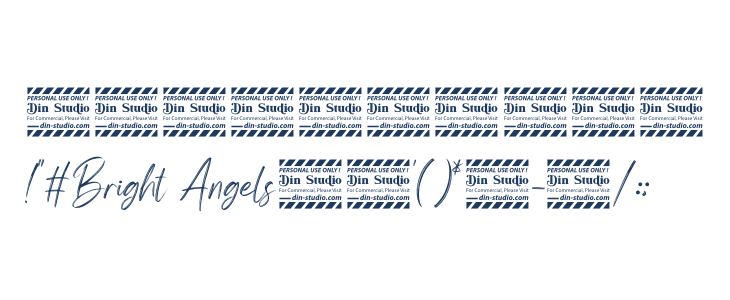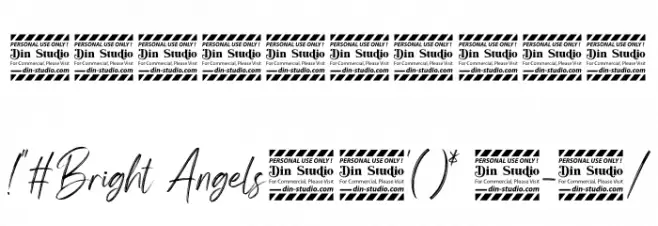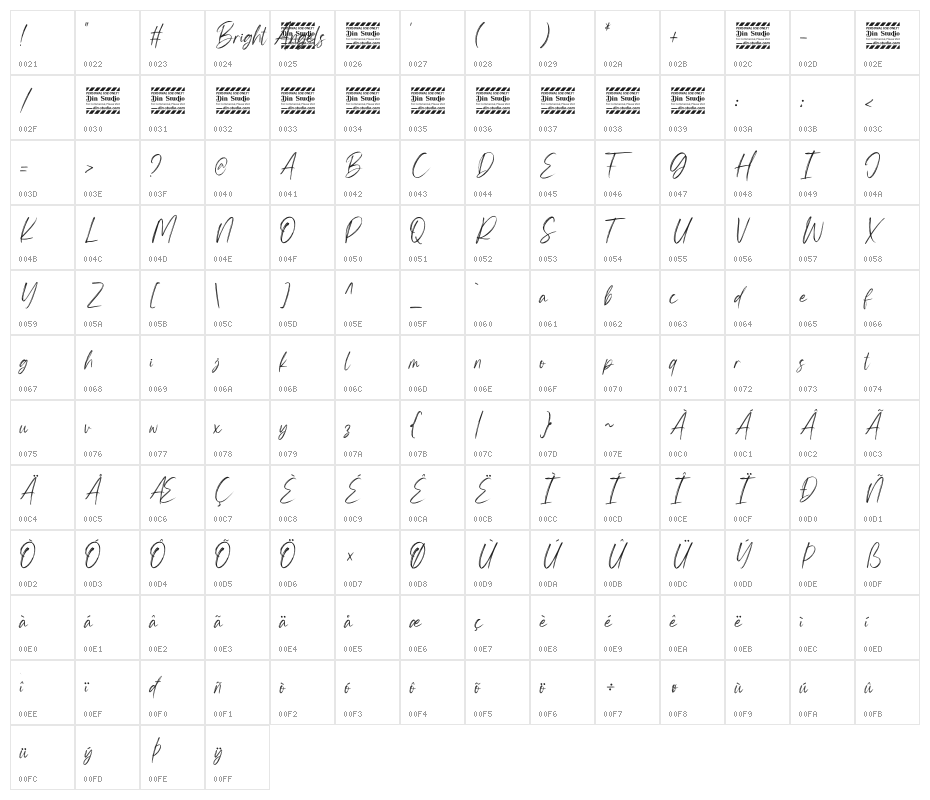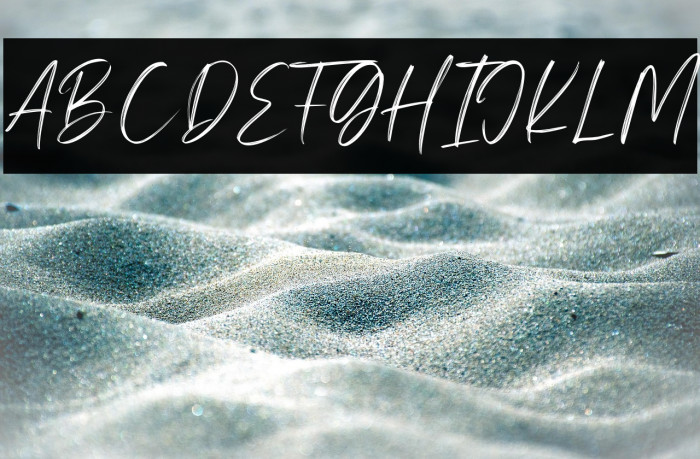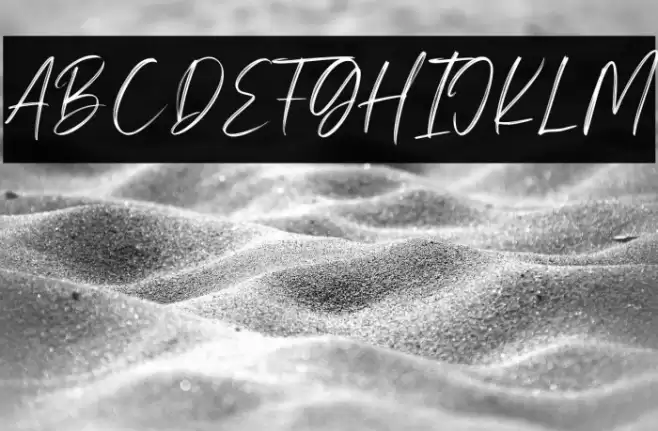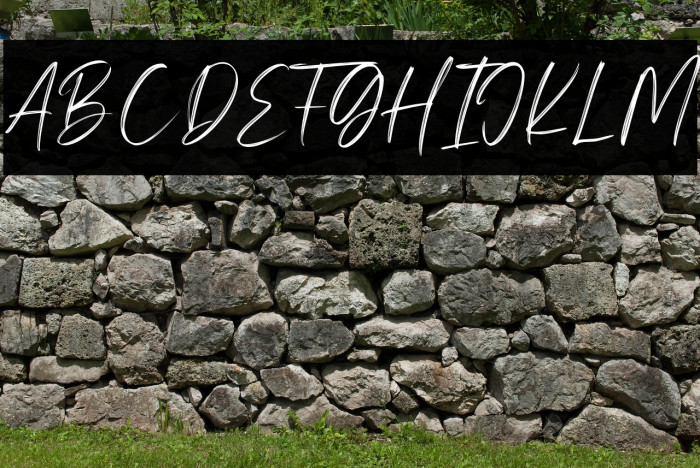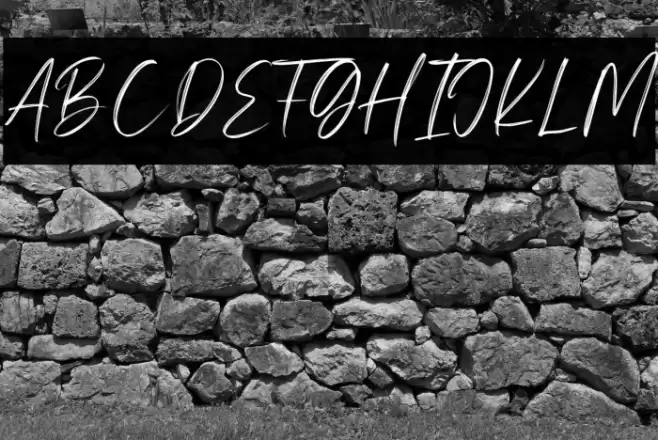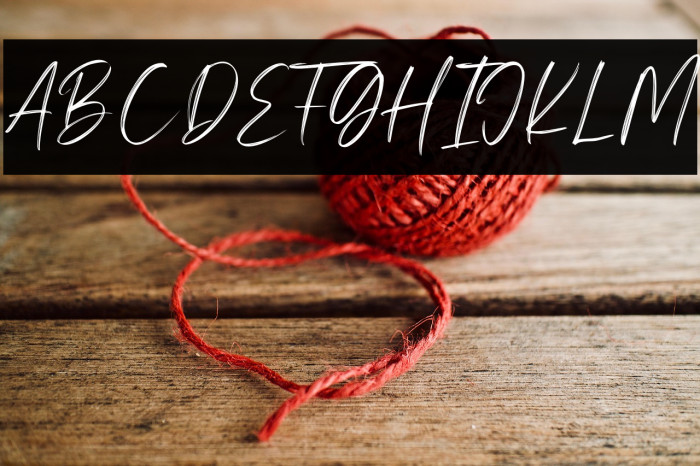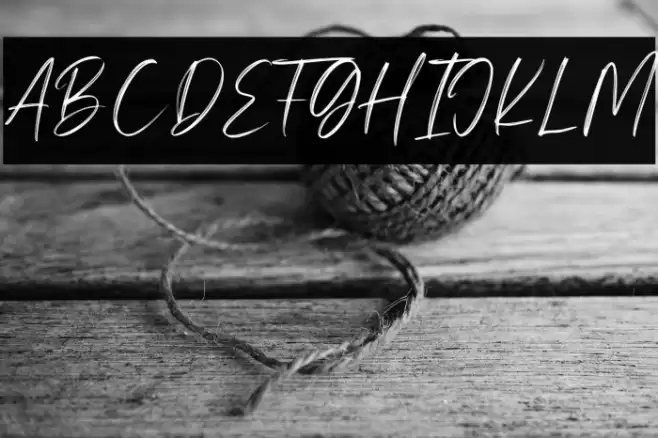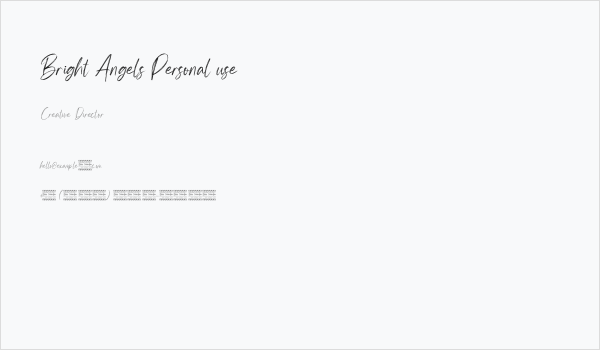
Bright Angels Personal use Font
Bright Angels Personal use Description
This font features a modern, handwritten style with a casual and flowing appearance. The letters are slightly slanted, giving it an elegant yet relaxed feel. The strokes vary in thickness, providing a dynamic and lively look. The uppercase letters are bold and prominent, while the lowercase letters maintain a consistent flow. The font includes a full set of uppercase and lowercase letters, numbers, and a selection of special characters. Its playful and artistic nature makes it suitable for creative projects.
| Use Case | Logos, Headlines, Social media graphics |
| Proposed Projects | Ideal for invitations, greeting cards, branding, and social media graphics. |